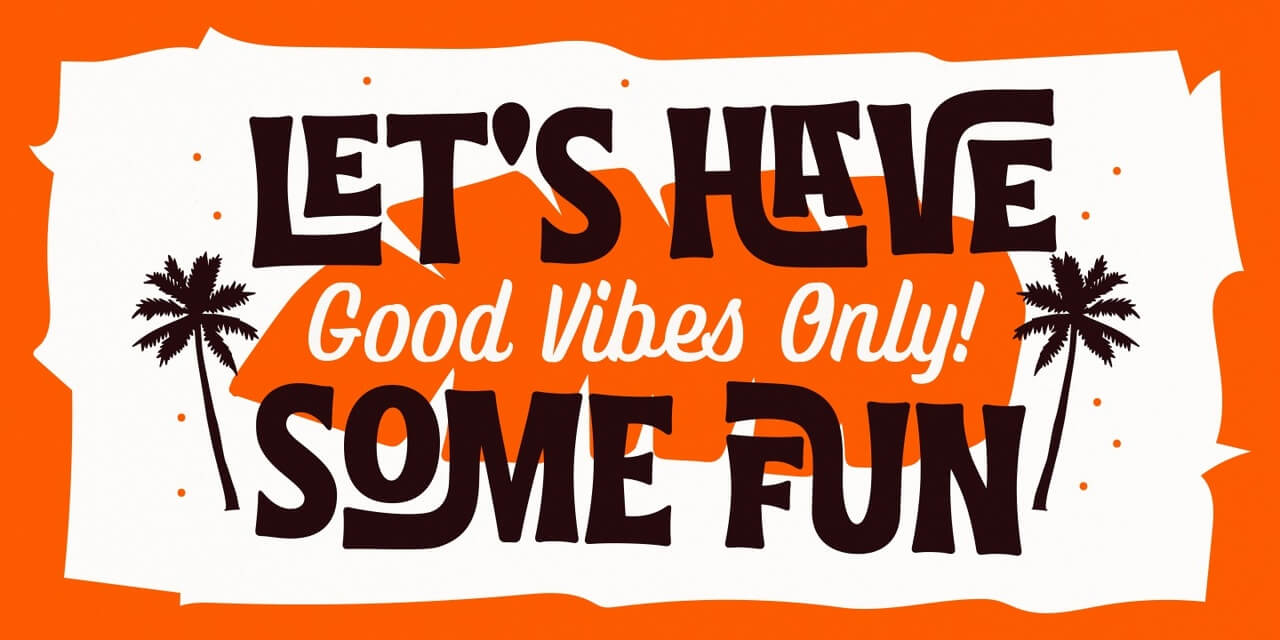
Tropika Island Font
Tropika Island Font - Inspired from my previous typeface (. Woff2 is supported in chrome. Web introducing a new tropical display font family called tropika island, inspired from my previous typeface (dreadful font. Web introducing a new tropical display font family called tropika island.
Woff2 is supported in chrome. Web introducing a new tropical display font family called tropika island. Inspired from my previous typeface (. Web introducing a new tropical display font family called tropika island, inspired from my previous typeface (dreadful font.
Web introducing a new tropical display font family called tropika island, inspired from my previous typeface (dreadful font. Web introducing a new tropical display font family called tropika island. Inspired from my previous typeface (. Woff2 is supported in chrome.
Web introducing a new tropical display font family called tropika island, inspired from my previous typeface (dreadful font. Woff2 is supported in chrome. Inspired from my previous typeface (. Web introducing a new tropical display font family called tropika island.
Web introducing a new tropical display font family called tropika island, inspired from my previous typeface (dreadful font. Web introducing a new tropical display font family called tropika island. Inspired from my previous typeface (. Woff2 is supported in chrome.
Woff2 is supported in chrome. Web introducing a new tropical display font family called tropika island. Inspired from my previous typeface (. Web introducing a new tropical display font family called tropika island, inspired from my previous typeface (dreadful font.
Woff2 is supported in chrome. Web introducing a new tropical display font family called tropika island, inspired from my previous typeface (dreadful font. Web introducing a new tropical display font family called tropika island. Inspired from my previous typeface (.
Web introducing a new tropical display font family called tropika island, inspired from my previous typeface (dreadful font. Inspired from my previous typeface (. Web introducing a new tropical display font family called tropika island. Woff2 is supported in chrome.
Tropika Island Font
Inspired from my previous typeface (. Web introducing a new tropical display font family called tropika island, inspired from my previous typeface (dreadful font. Web introducing a new tropical display font family called tropika island. Woff2 is supported in chrome.
Inspired from my previous typeface (. Web introducing a new tropical display font family called tropika island. Woff2 is supported in chrome. Web introducing a new tropical display font family called tropika island, inspired from my previous typeface (dreadful font.
Woff2 is supported in chrome. Web introducing a new tropical display font family called tropika island. Inspired from my previous typeface (. Web introducing a new tropical display font family called tropika island, inspired from my previous typeface (dreadful font.
Tropika Island Font
Web introducing a new tropical display font family called tropika island, inspired from my previous typeface (dreadful font. Web introducing a new tropical display font family called tropika island. Woff2 is supported in chrome. Inspired from my previous typeface (.
Tropika Island Font Family Design Cuts
Woff2 is supported in chrome. Inspired from my previous typeface (. Web introducing a new tropical display font family called tropika island. Web introducing a new tropical display font family called tropika island, inspired from my previous typeface (dreadful font.
Inspired From My Previous Typeface (.
Web introducing a new tropical display font family called tropika island. Web introducing a new tropical display font family called tropika island, inspired from my previous typeface (dreadful font. Woff2 is supported in chrome.